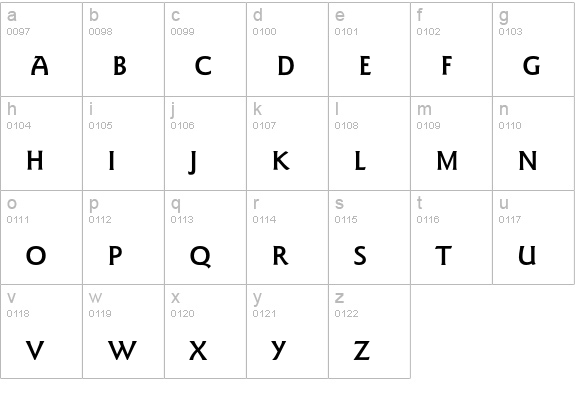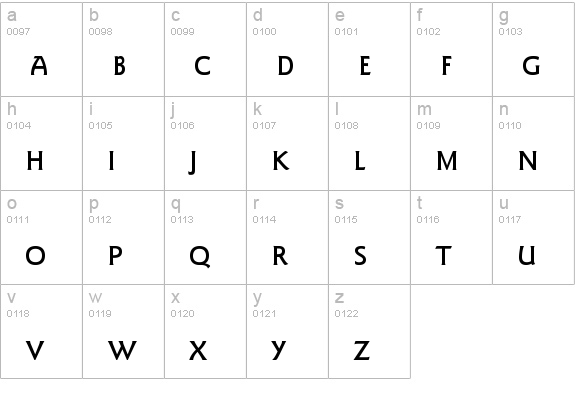
GoudySansSCEF-Medium Font Details
GoudySansSCEF-Medium is a balanced, medium-weight variant in the GoudySansSCEF typeface family \xE2\x80\x94 well suited to sub-headlines, navigation, and balanced editorial work.
GoudySansSCEF-Medium font is a modern and versatile typeface that exudes elegance and sophistication. With its clean lines and balanced proportions, this font is perfect for a wide range of design projects. Whether you're creating a sleek logo, designing a professional website, or crafting eye-catching marketing materials, GoudySansSCEF-Medium will elevate your work to the next level. The best part? This high-quality font is available for free download at FontsMarket.com. Now you can access this premium typeface without breaking the bank, making it a valuable addition to your font collection. Embrace the timeless appeal of GoudySansSCEF-Medium and bring a touch of class to your designs today.